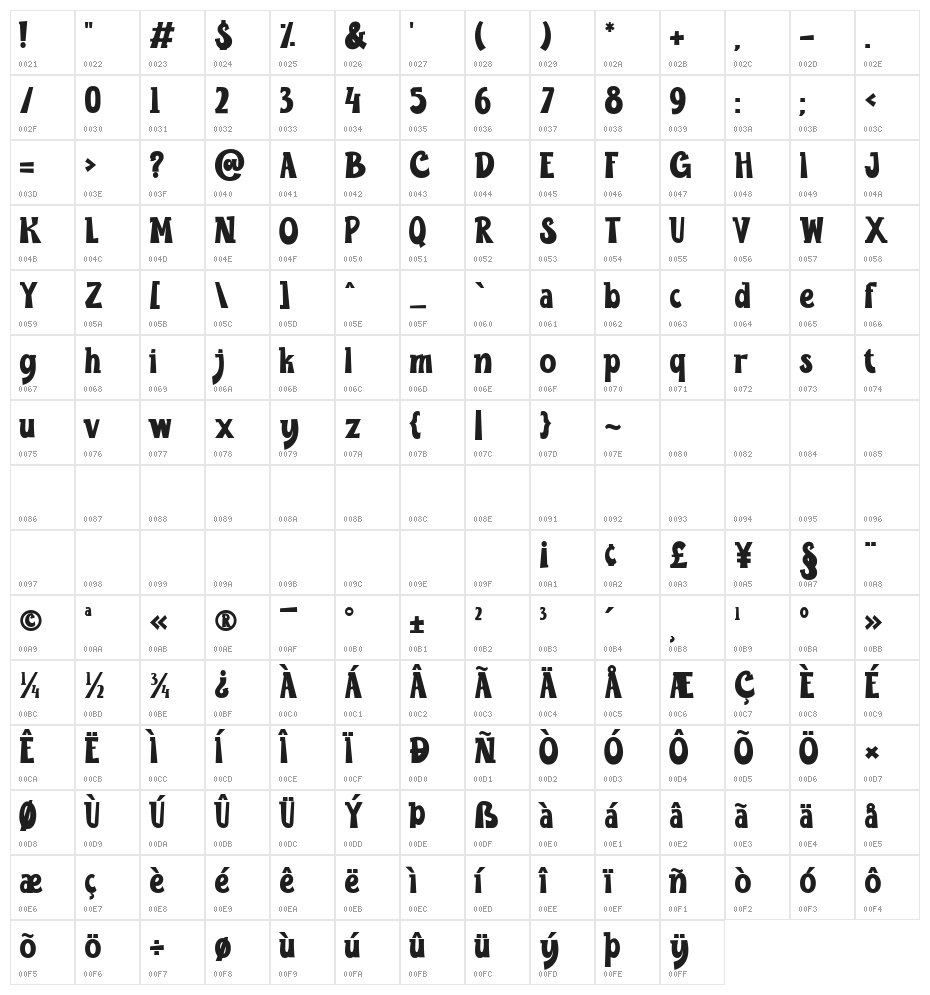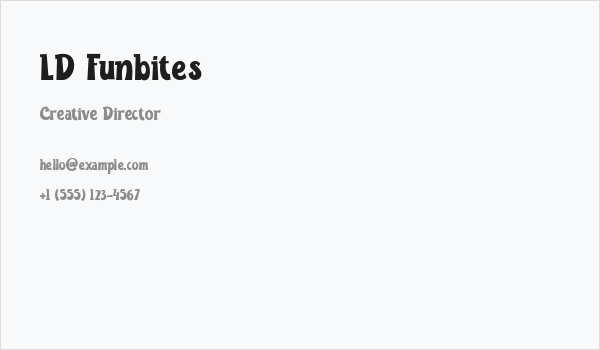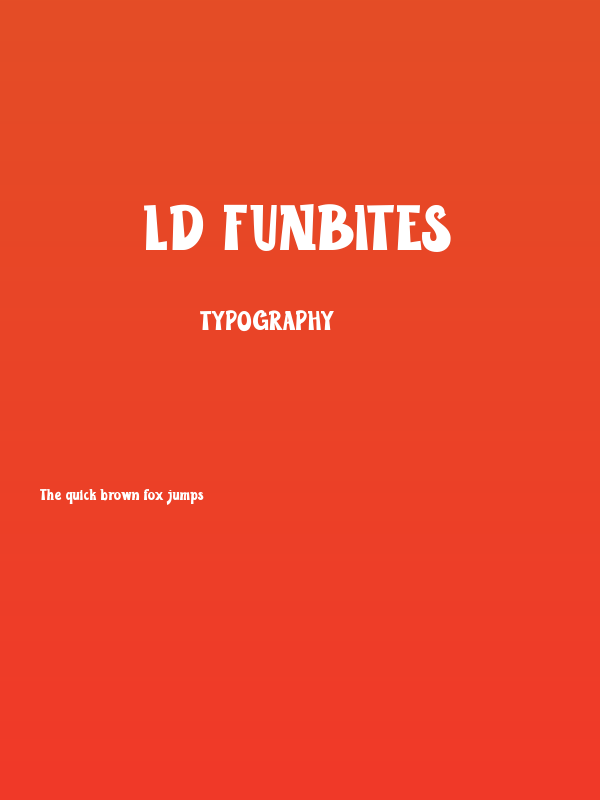
LD Funbites Font
LD Funbites Description
This font features a playful and bold design, characterized by its thick strokes and slightly irregular shapes that give it a whimsical and fun appearance. The uppercase letters are particularly striking, with a dynamic and energetic feel, while the lowercase letters maintain a consistent style that complements the overall look. The numerals and special characters are designed with the same playful aesthetic, making this font suitable for projects that require a lively and engaging typeface. Its boldness ensures high readability, while the unique character shapes add a touch of creativity and flair.